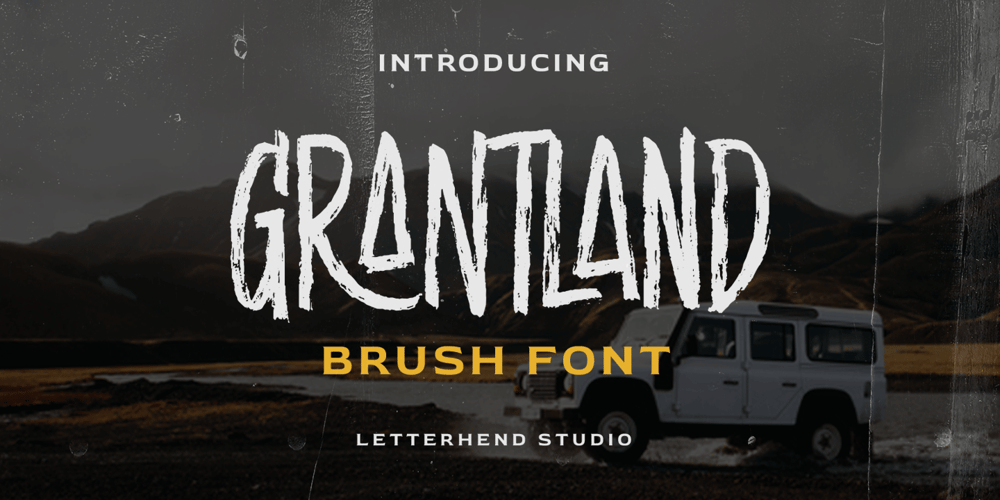
Grantland
Grantland font
Grantland Font Family was designed by Hendry Juanda and published by Letterhend. Grantland contains 1 styles and family package options. Grantlad is a condensed hand drawn brush font which is purposely made for headline, display or logotype, and signature which need a standout appearing. This font is also suitable to be applied especially in logo, and the other various formal forms such as invitations, labels, logos, magazines, books, greeting / wedding cards, packaging, fashion, make up, stationery, novels, labels or any type of advertising purpose.Features : uppercase & lowercase numbers and punctuation multilingual alternates & ligatures PUA encoded We highly recommend using a program that supports OpenType features and Glyphs panels like many of Adobe apps and Corel Draw, so you can see and access all Glyph variations. How to access opentype feature : letterhend.com/tutorials/using-opentype-feature-in-any-software/Email us to letterhend@gmail.com if you need something! Happy Designing!